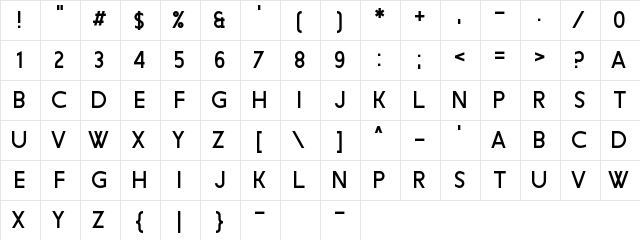
Cute Zealand Regular Font Preview
Cute Zealand Regular
Design Context for Cute Zealand Typeface
Cute Zealand is a composed and adaptable typeface that performs quietly and consistently across a wide range of design contexts.
Pro Tip: Pair Cute Zealand with a font of contrasting weight or personality to build a more expressive typographic hierarchy.